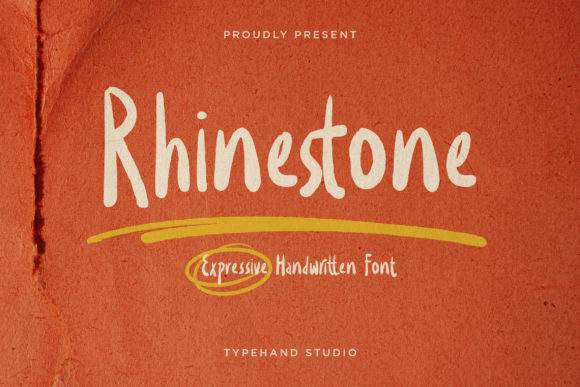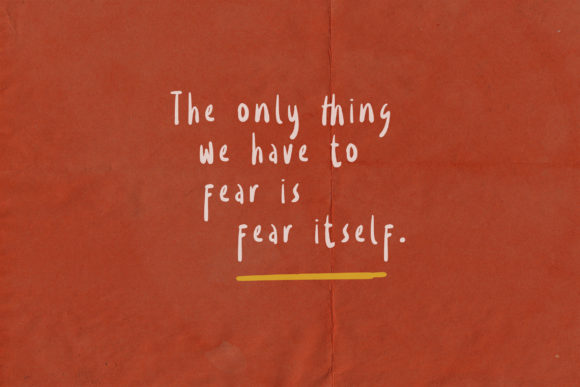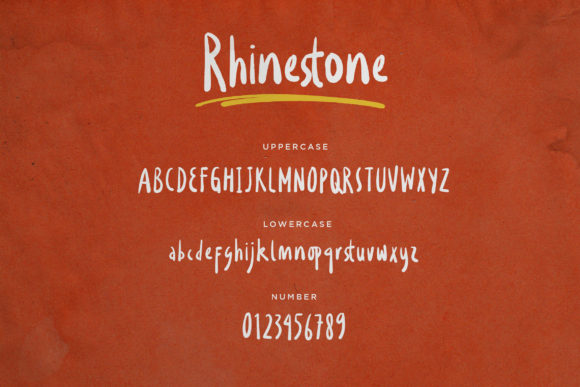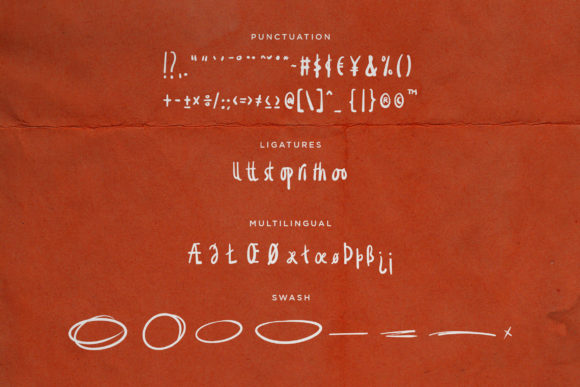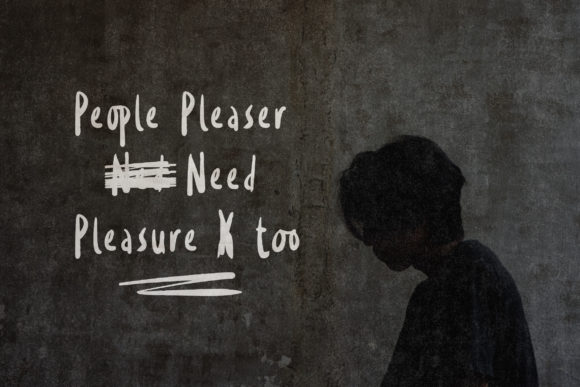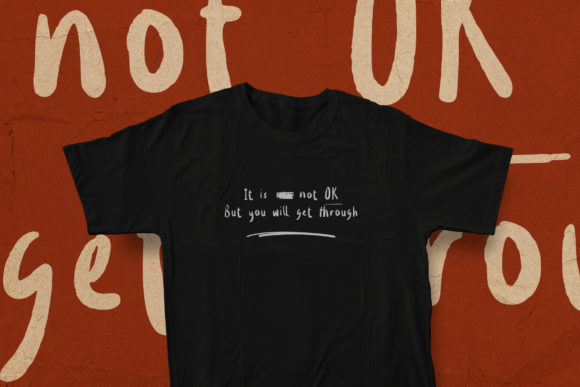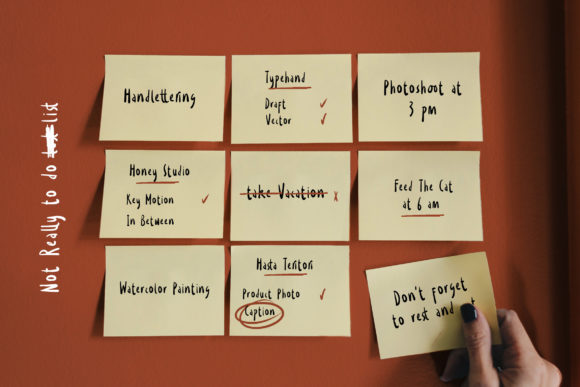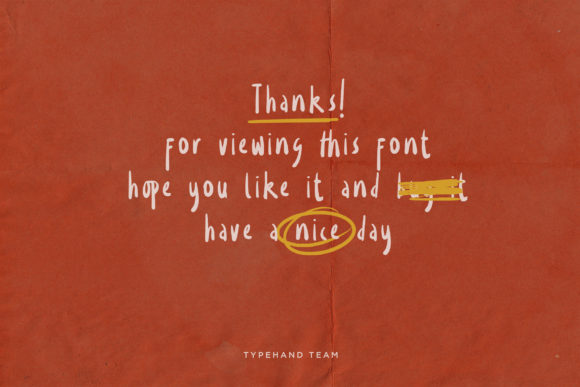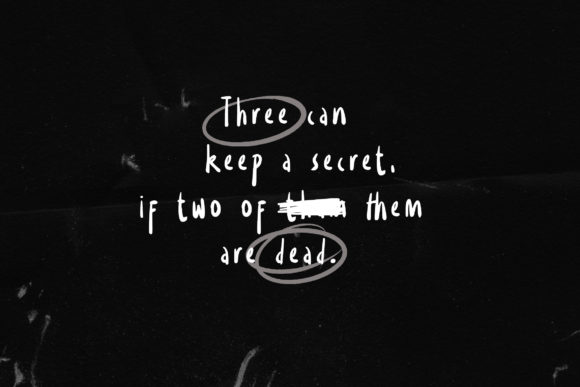
Rhinestone Font
About Rhinestone Font
Rhinestone is a relaxed and trendy paint brushed handwritten font. Expertly designed to make your creation look out of this world, this font will look gorgeous on a variety of ideas.